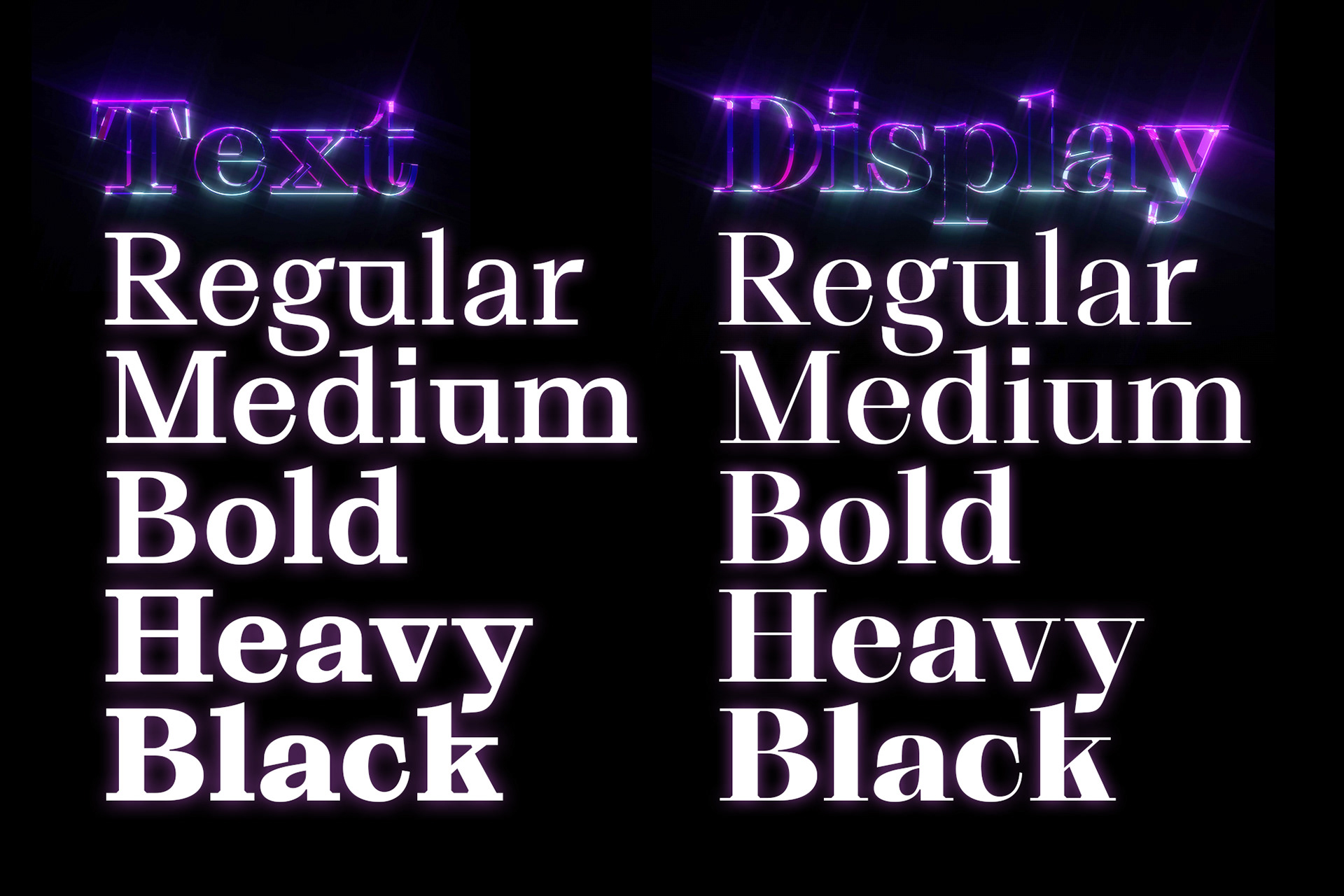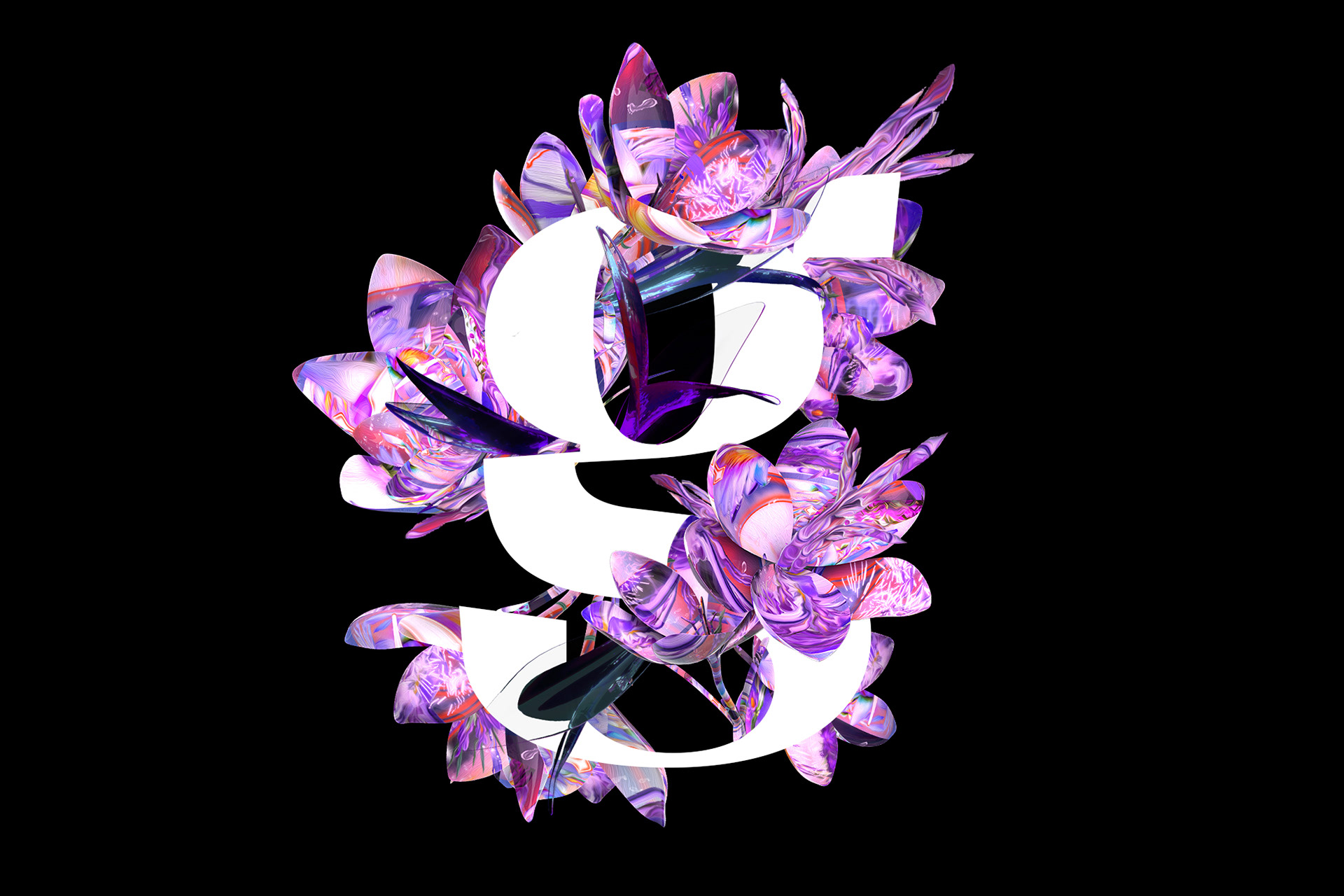
We have the running conversation that a serif typeface isn't generally the strong opinion when speaking about 'product design' because of its readability and constraints. But who cares! I think there is a definite purpose for a serif type and let's take a look at Grafier Serif Typeface and its variables by Alex Slobzheninov. This font family consists of 10 styles: five weights from Regular to Black in two contrast variations. It's a perfect combination in play with a sans-serif font!